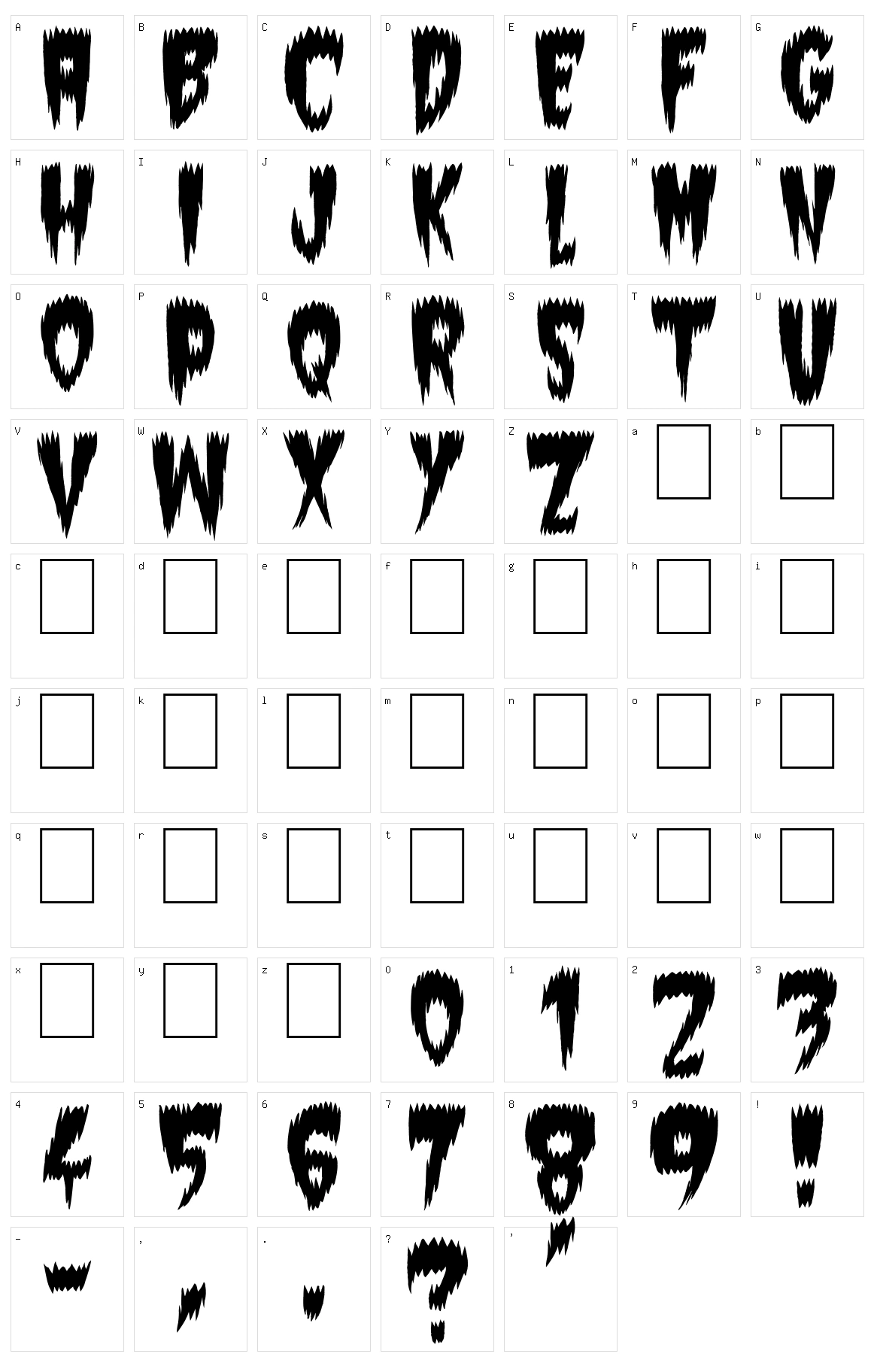
The free font Super Weird is carefully designed by imagex, showcasing a thoughtful balance of creativity and usability and falls under the Horror font style. When you download the ZIP file, it contains only 30.19 KB of font files, making it lightweight and quick to download. Please review the license details below to understand permitted usage and distribution rights. If license information is not available, we recommend using this font for personal projects only or contacting the author directly for commercial usage permissions.